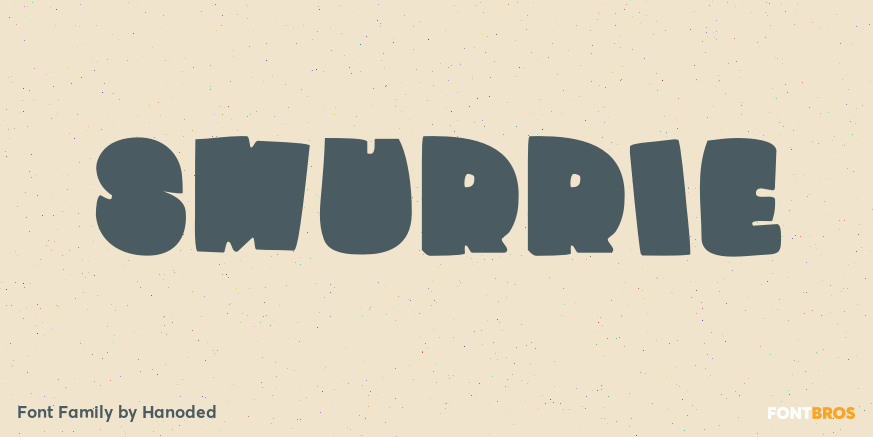
Smurrie
About Smurrie
Smurrie means \’sludge? in Dutch. It is not an exact translation, but as good as I could find. The name refers to the rounded, blob-like shape of the glyphs. I think this font would look very good on posters, book covers and T-shirts. Smurrie is an all…